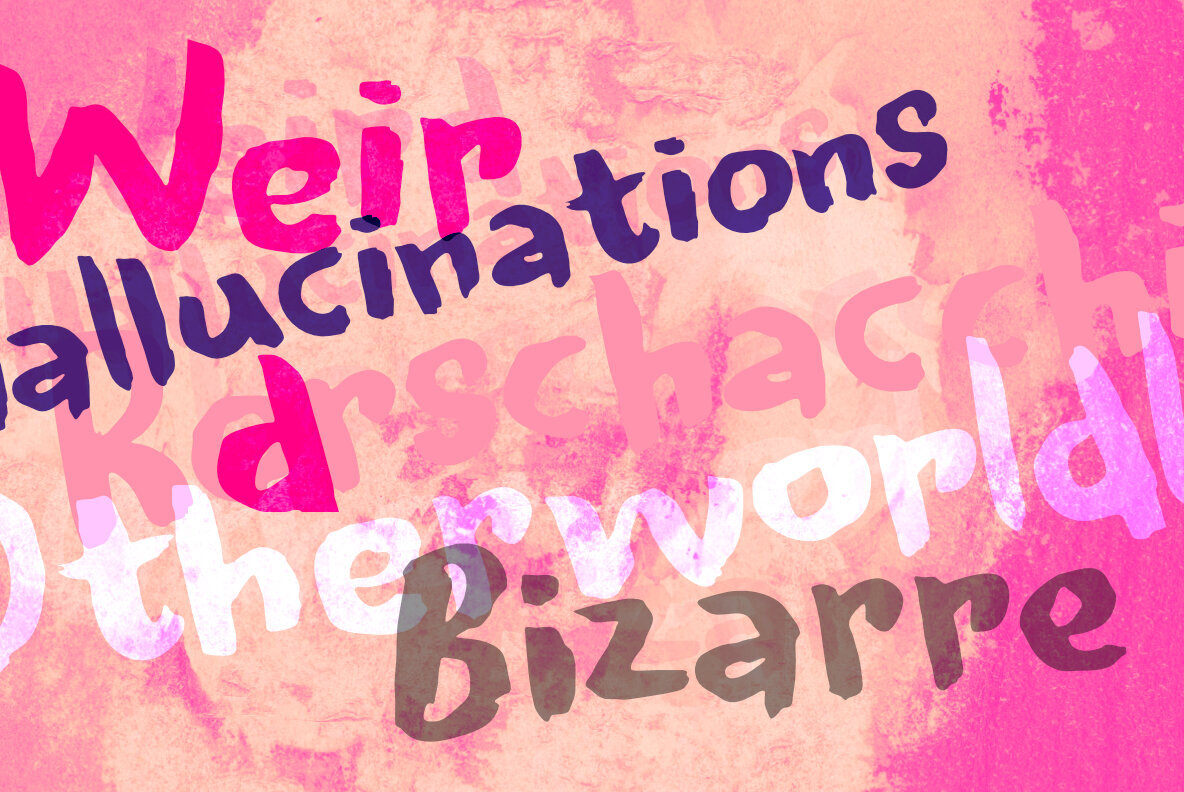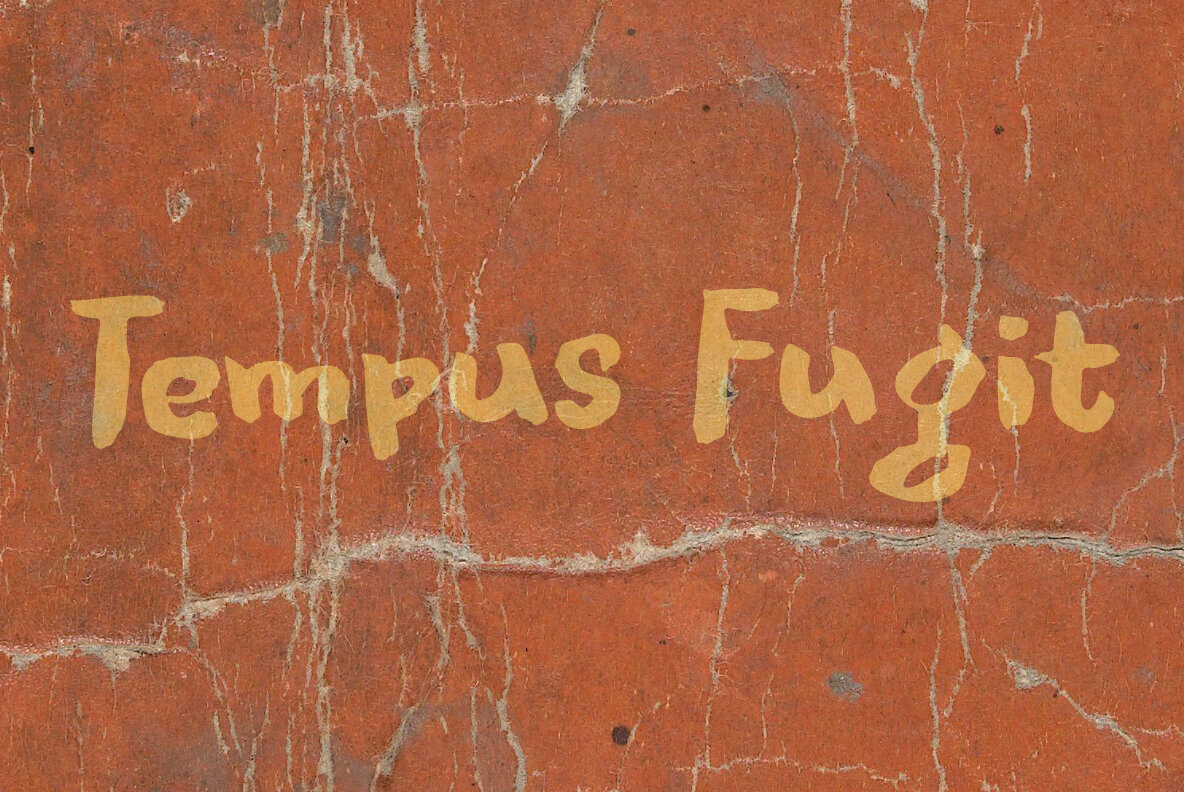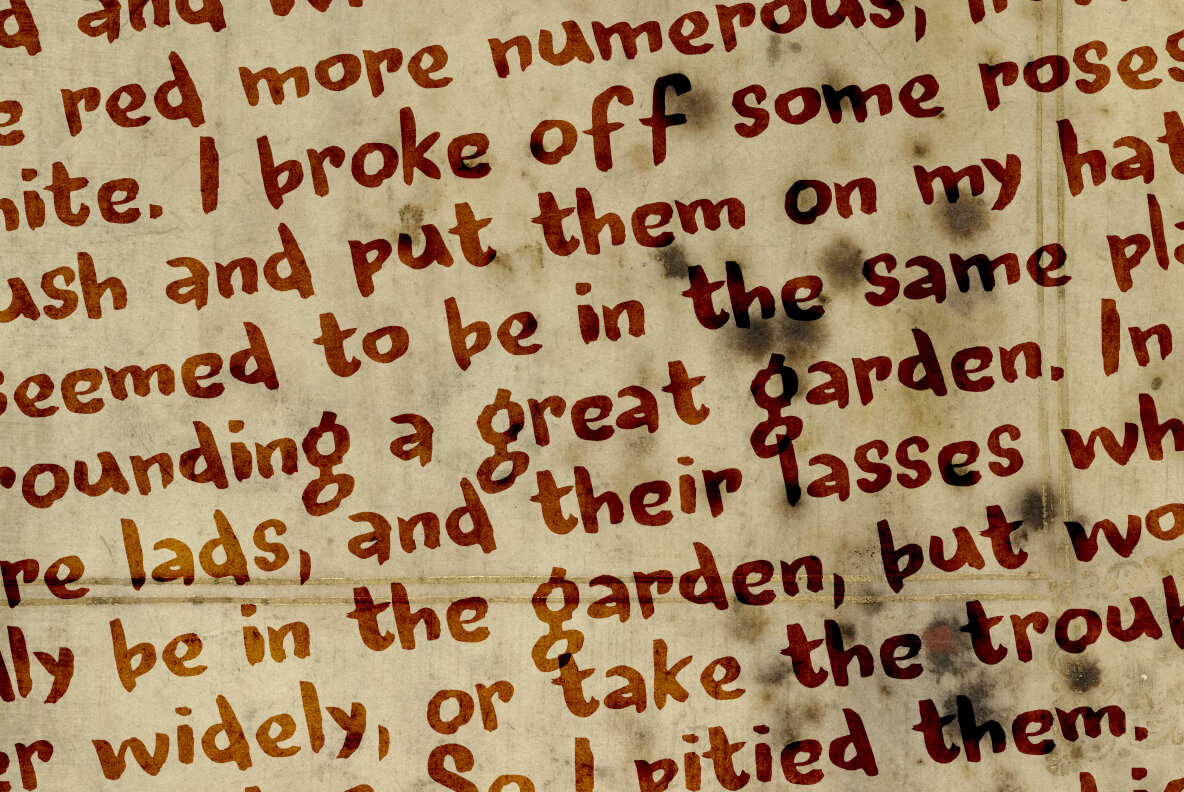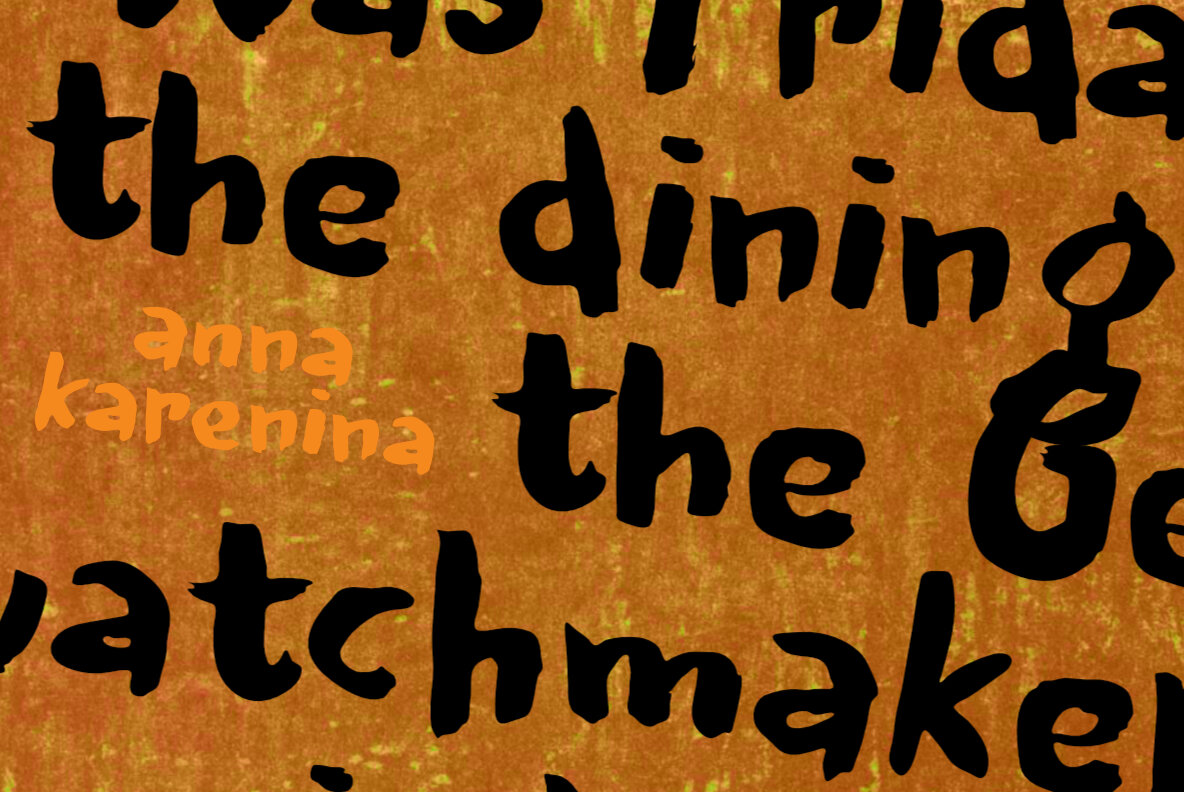
Fat Inker Font
Fat Inker captures attention with its robust, inky appearance, making it ideal for poster designs. Created using a Chinese brush and ink, this font exudes authenticity and artistic flair.Fat Inker: Bold Brush Script for Posters
Perfectly suited for bold headlines and creative projects, Fat Inker brings an expressive touch to your typography needs.